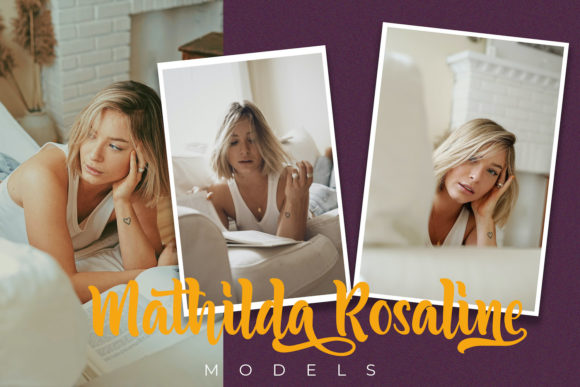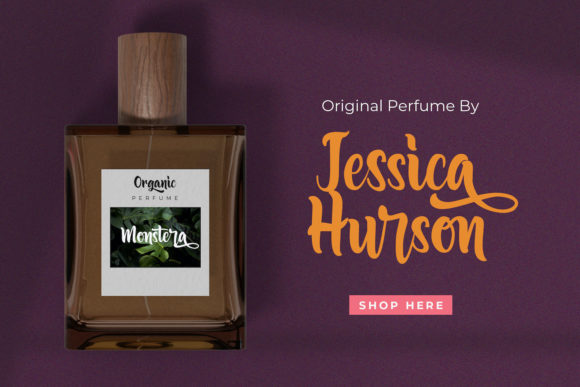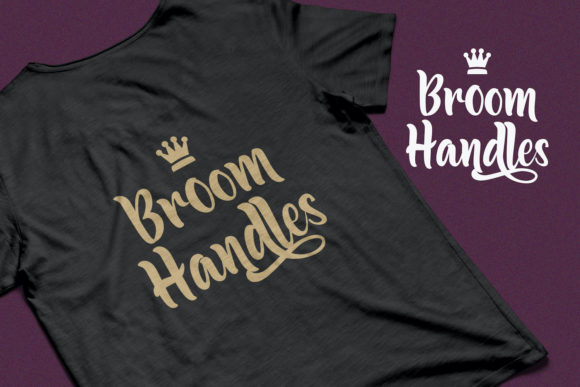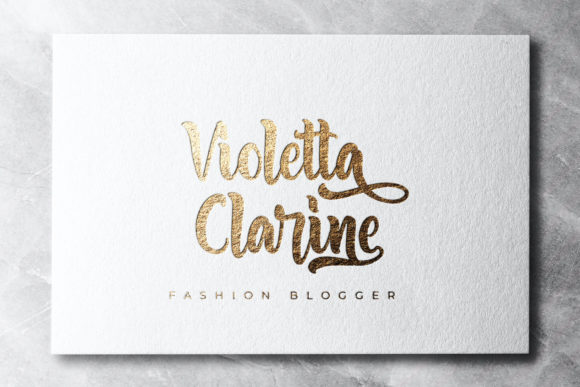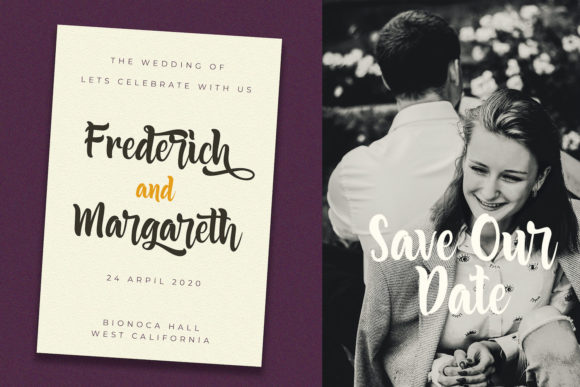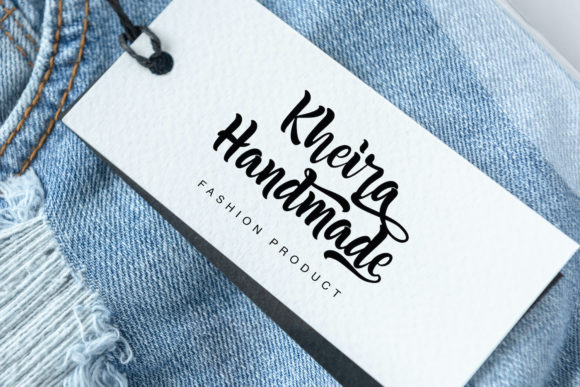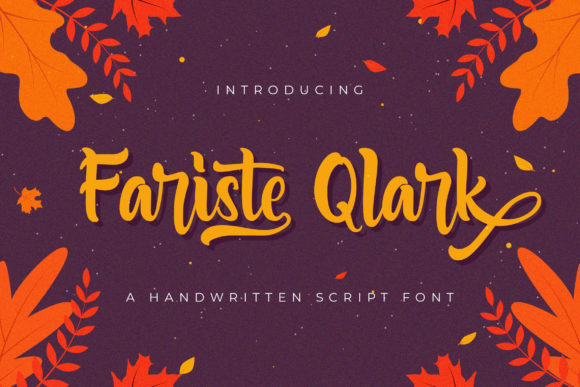
Introducing Fariste Qlark Font: Elevate Your Designs with Elegance
In the world of typography, a font can make or break a design. For designers and crafters looking to add a touch of sophistication and elegance to their creative projects, Fariste Qlark Font is an exceptional choice. This beautiful, handwritten font is designed to bring a sense of luxury and refinement to any design, making it a versatile addition to your typography collection.
The Beauty of Fariste Qlark
Fariste Qlark is an elegant and flowing handwritten font that boasts well-balanced characters, making it an ideal match for a wide range of designs. Whether you’re working on a branding project, packaging, or digital content, this font is sure to enhance your creative ideas and bring them to life. The flowing nature of Fariste Qlark gives it a dynamic and sophisticated feel, perfect for designers who want to add a personal touch to their work.
One of the standout features of Fariste Qlark Font is its PUA (Private Use Area) encoding. This means that accessing the font’s extensive range of glyphs and swashes is incredibly straightforward. With PUA encoding, you can easily access and use the various characters and decorative elements within the font, allowing you to experiment and create unique designs with ease. No more tedious searching for the right character or spending hours trying to get the perfect look – Fariste Qlark makes it simple.
The versatility of Fariste Qlark Font is one of its most compelling features. Its elegant and flowing script can be used across a multitude of design projects, including:
• Branding and Logos: Create a lasting impression with a custom logo that exudes elegance and sophistication.
• Stationery and Packaging: Elevate your business cards, letterheads, and product packaging with a refined and luxurious look.
• Digital Content: Enhance your website, blog, or social media graphics with a font that adds a touch of class and personality.
• Arts and Crafts: Perfect for crafters, this font can be used for creating beautiful handmade cards, scrapbooking, and other craft projects.
Why Choose Fariste Qlark?
With so many fonts available, why choose Fariste Qlark? Here are a few compelling reasons:
• Elegance: Fariste Qlark brings an unparalleled level of elegance to any design, setting it apart from more basic fonts.
• Readability: Despite its elegant and flowing nature, Fariste Qlark remains highly readable, making it suitable for both headings and body text.
• Customization: With its PUA encoding and range of glyphs and swashes, you have the freedom to customize your text and make it truly unique.
Getting Started with Fariste Qlark
• Experiment with Swashes: Don’t be afraid to try out different swashes and glyphs to add a personal touch to your designs.
• Mix and Match: Combine Fariste Qlark with other fonts to create interesting contrasts and visual hierarchies.
• Play with Colors: The elegance of Fariste Qlark can be further enhanced by pairing it with a thoughtful color scheme.
Fariste Qlark Font is a beautiful, elegant, and versatile handwritten font that can elevate any design project. Its well-balanced characters, PUA encoding, and extensive range of glyphs and swashes make it an excellent choice for designers and crafters looking to add a touch of sophistication to their work. Whether you’re creating branding materials, digital content, or handmade crafts, Fariste Qlark is sure to bring your creative ideas to life.